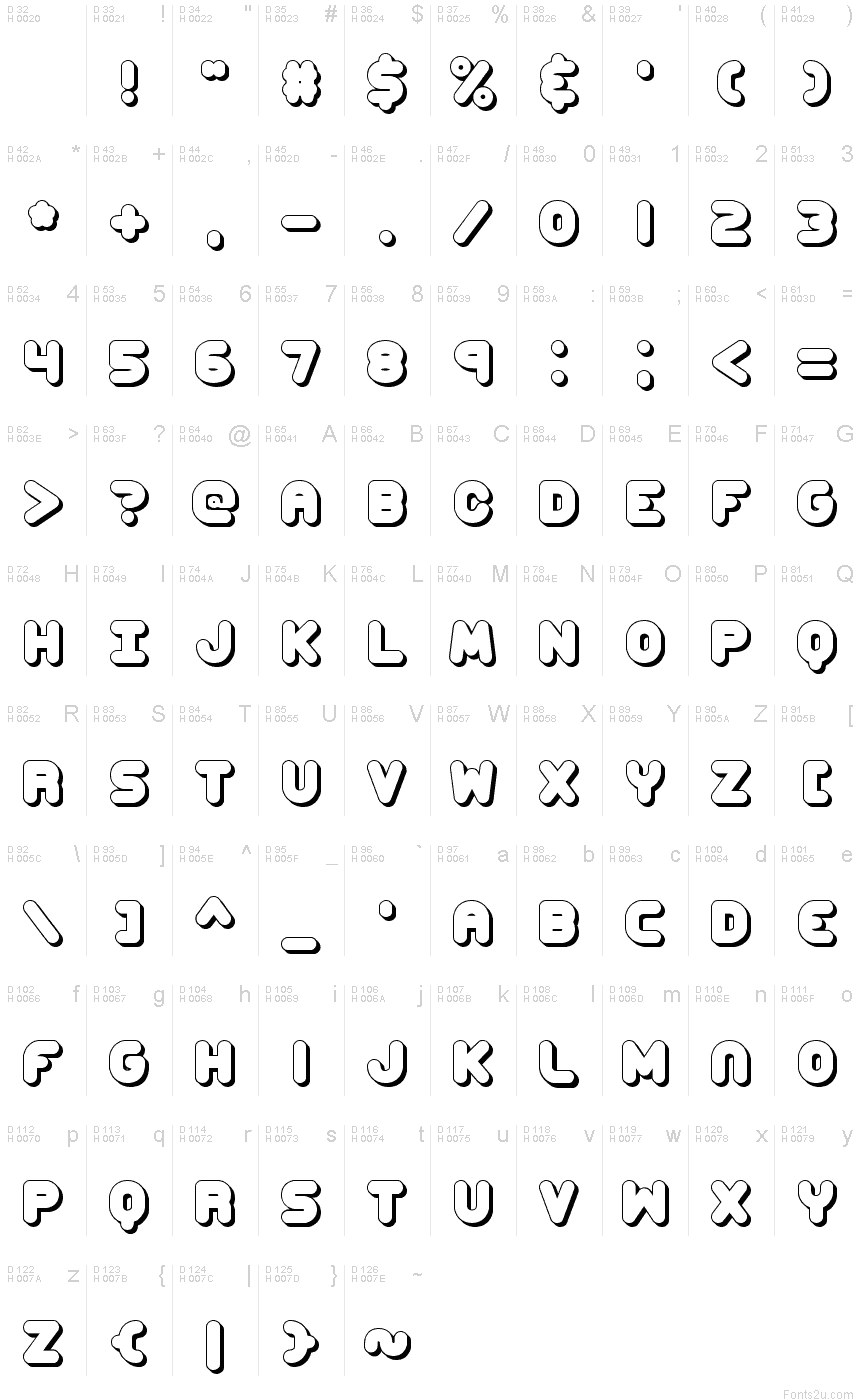
Corpulent Caps Shadow -BRK-
Corpulent Caps Shadow -BRK- font by Ænigma Fonts comes swinging in with inflated, marshmallow-thick caps and a crisp inner shadow that makes every letter feel pressed, stamped, and slightly 3D. From the Corpulent Caps Shadow (BRK) family, it is a free groovy decorative display font with soft corners and a bold, poster-ready rhythm that reads from across the room.
Using Corpulent Caps Shadow -BRK-, you’ll get instant punch on album covers, skate or surf merch, retro event flyers, sticker packs, kids’ packaging, punchy YouTube thumbnails, and playful café signage. Keep it big and roomy, and pair it with a plain condensed sans for the small stuff-this free font likes to be the loud headline, not the fine print.